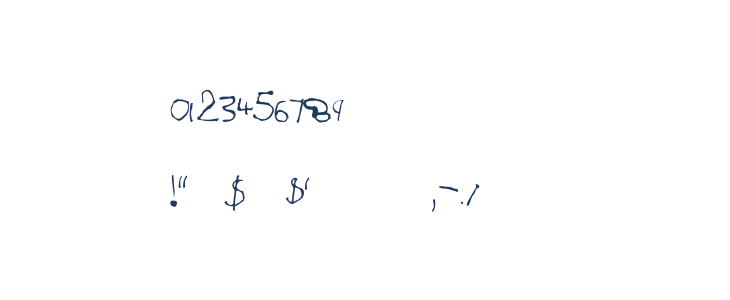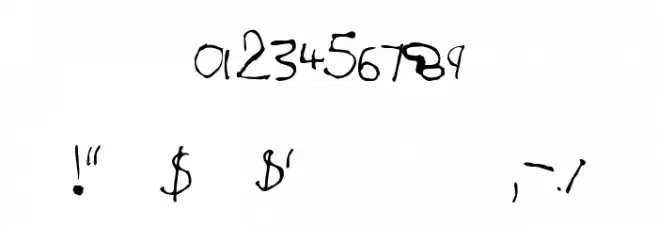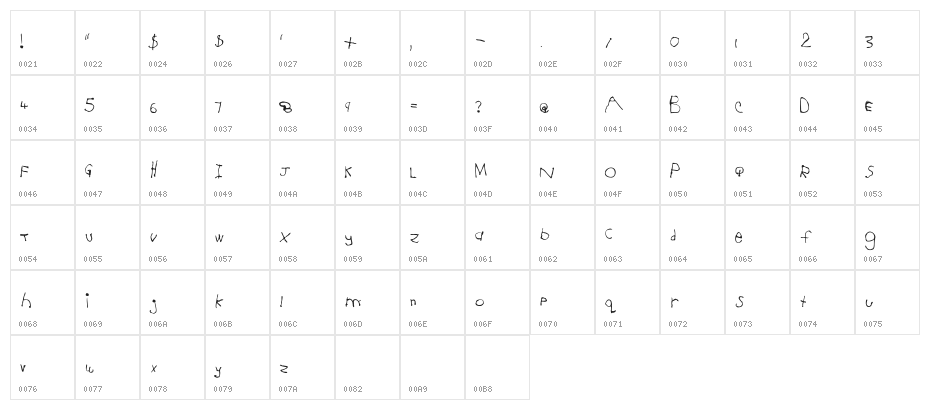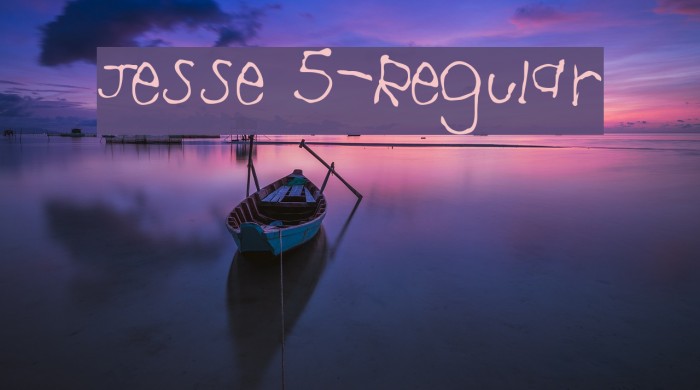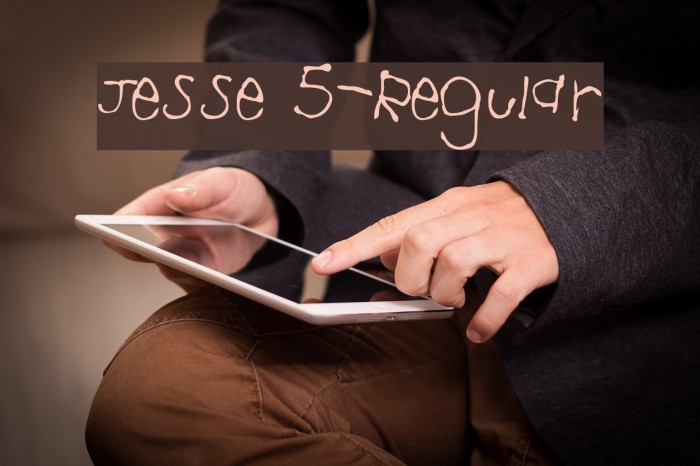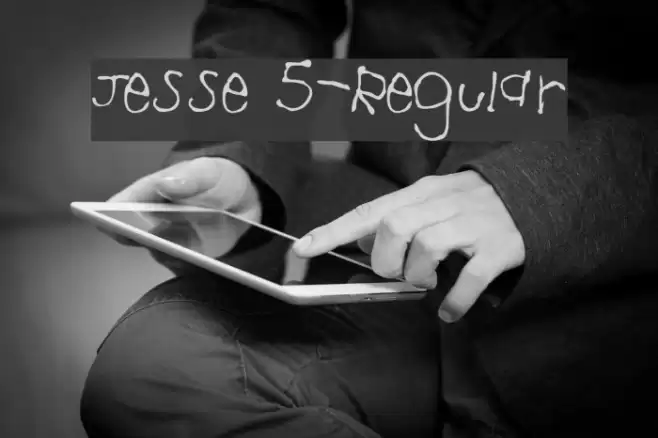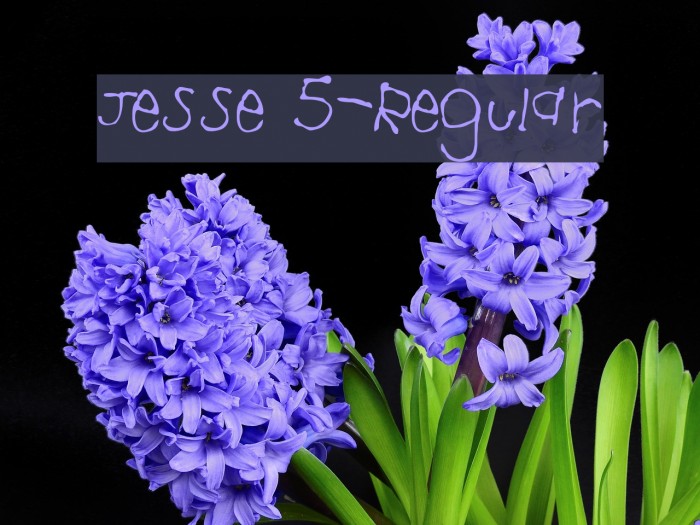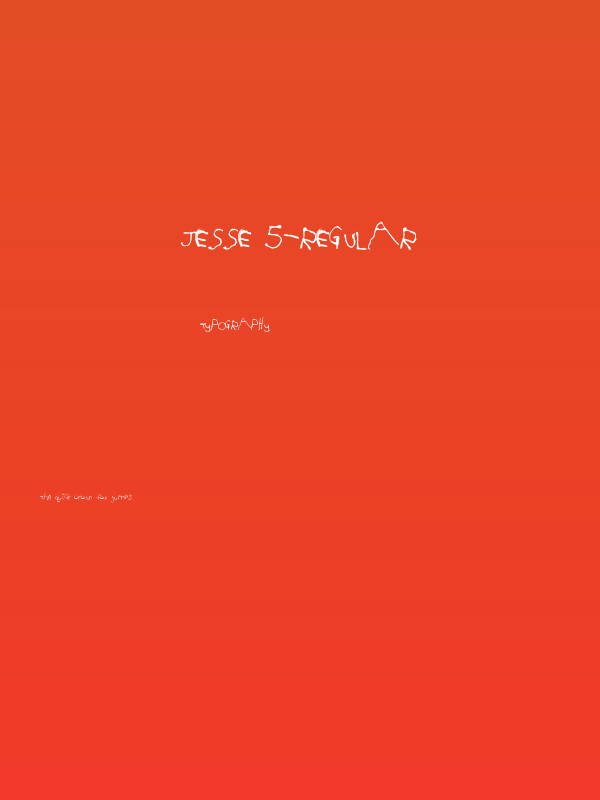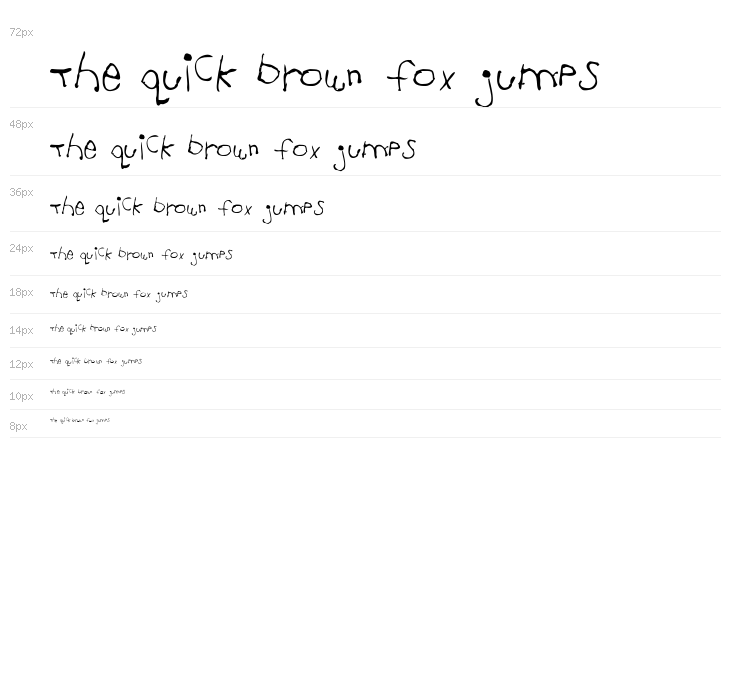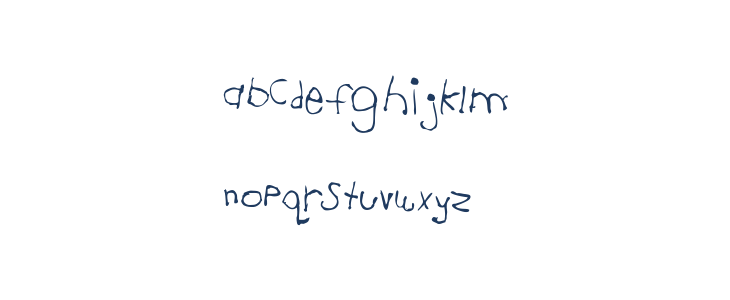
Jesse 5-Regular Font
Jesse 5-Regular Description
This font features a playful and whimsical handwritten style, characterized by irregular strokes and a casual, informal appearance. The letters have a slightly uneven baseline, adding to the hand-drawn effect. The uppercase and lowercase letters are distinct, with some characters exhibiting unique flourishes and loops. The numerals maintain the same playful style, ensuring consistency across the font. Special characters are included, matching the overall aesthetic. This font exudes a sense of creativity and spontaneity, making it suitable for projects that require a personal touch.
| Overall Style | Whimsical |
| Use Case | Creative projects, informal text, personal branding |
| Proposed Projects | Ideal for children's books, creative projects, personal invitations, and casual branding. |